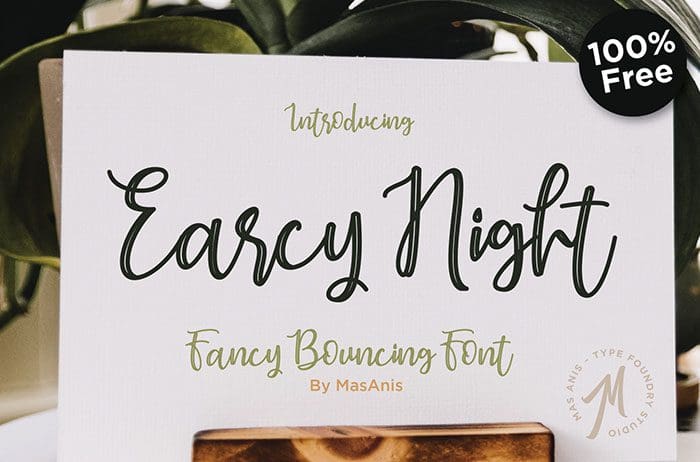
Earcy Night is a cool and modern straight handwritten font. It’s unique handwritten look makes it perfect for use in all your design projects be it logos, signatures, labels, packaging design, blog headlines. Designed this font by Mas Anis. You can also search more freeĀ Handwritten Fonts.